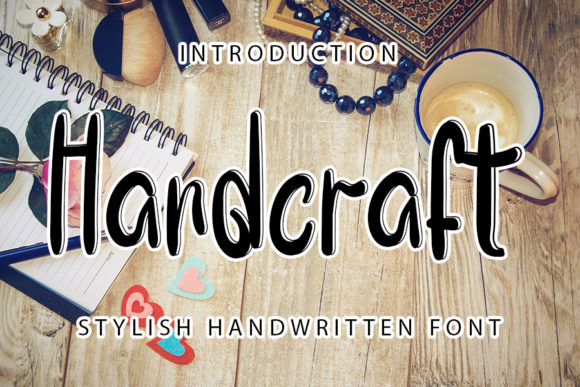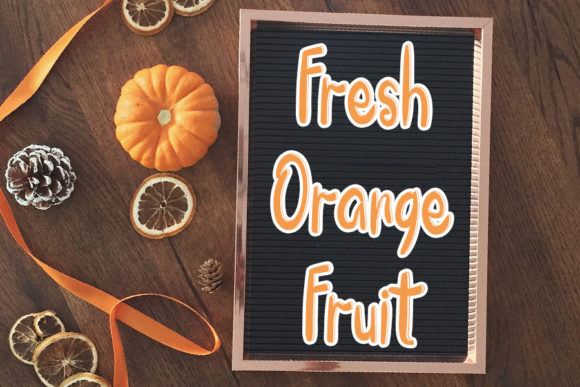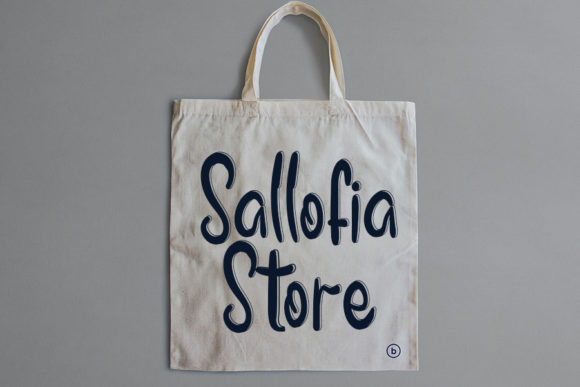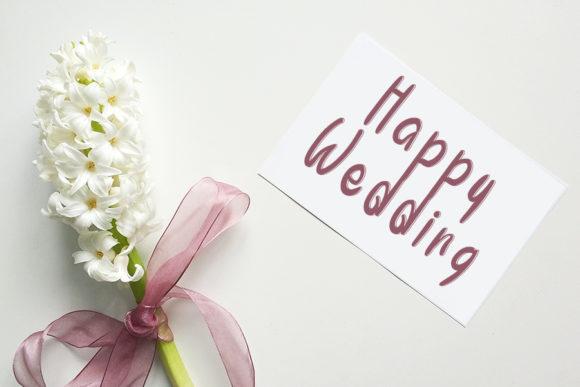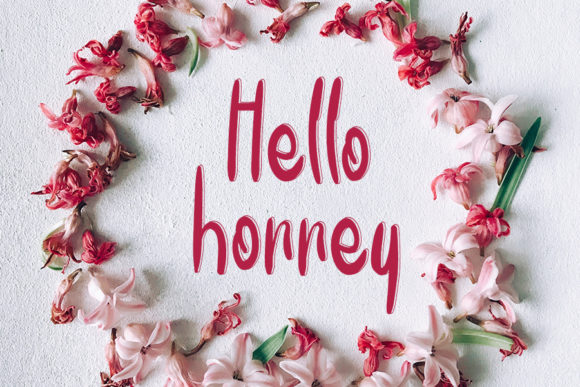
Handcraft Font
Handcraft is a casual handwritten font. Clean and a little bit quirky, this font is the perfect fit for all of your logos, branding, social media, and crafty DIY projects.